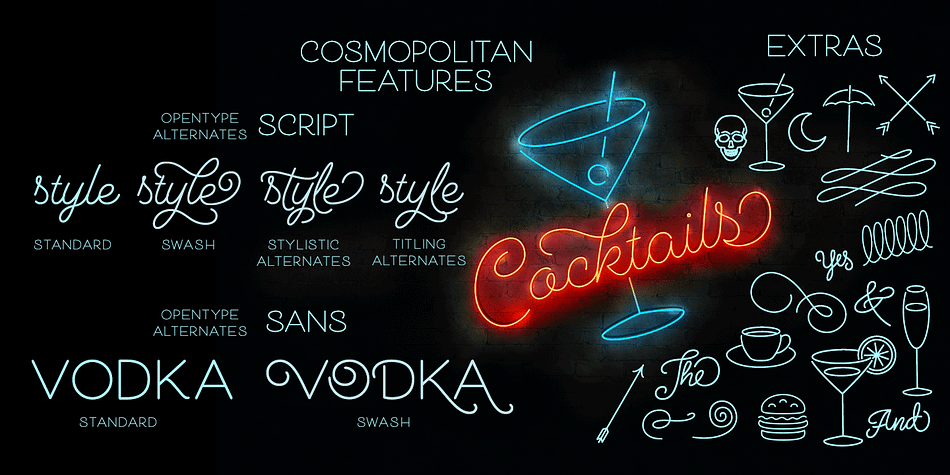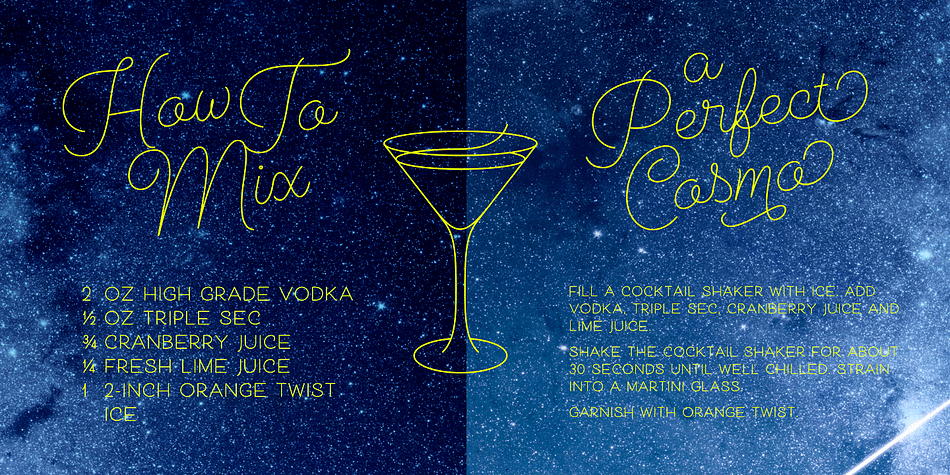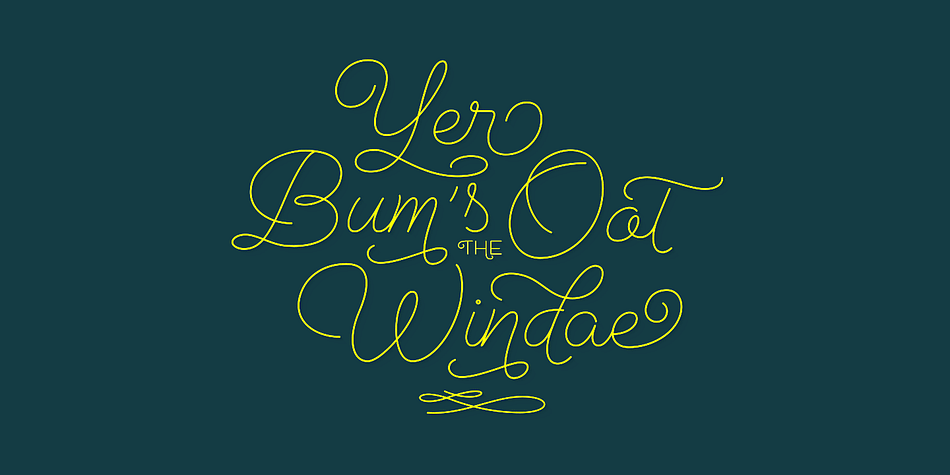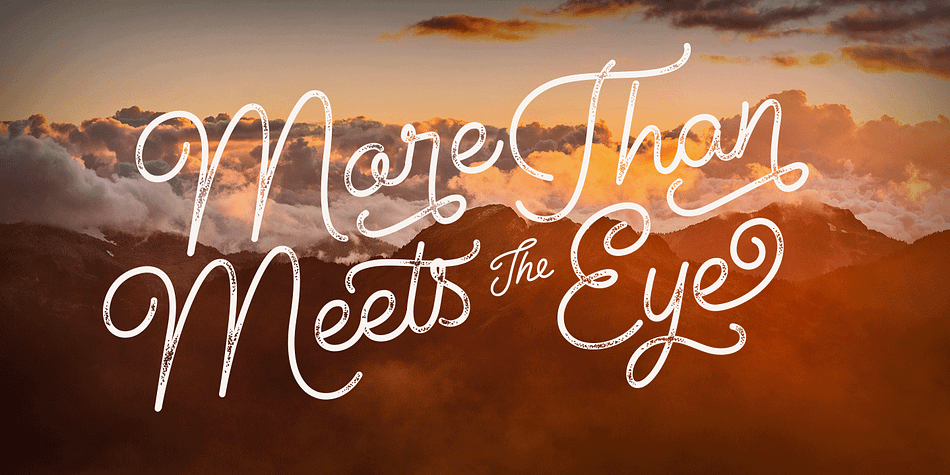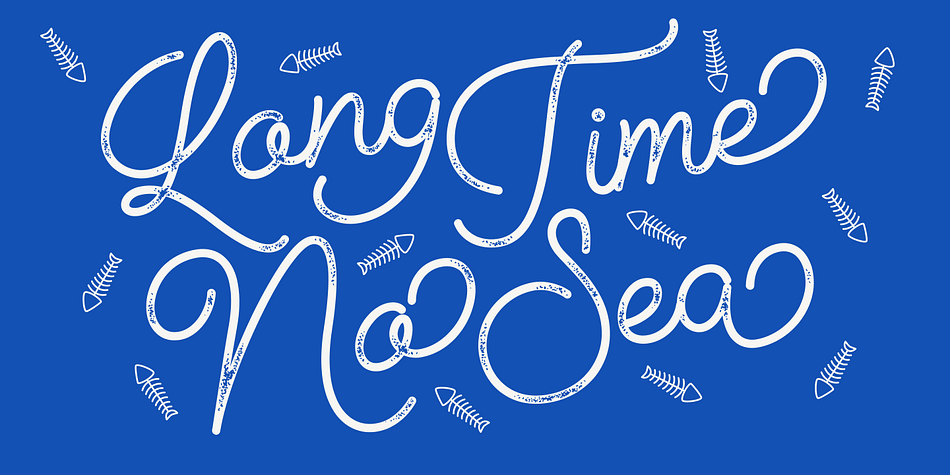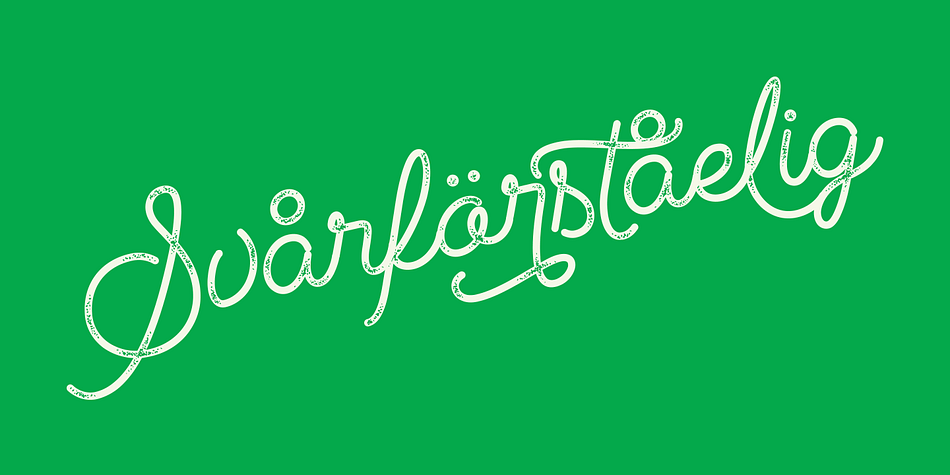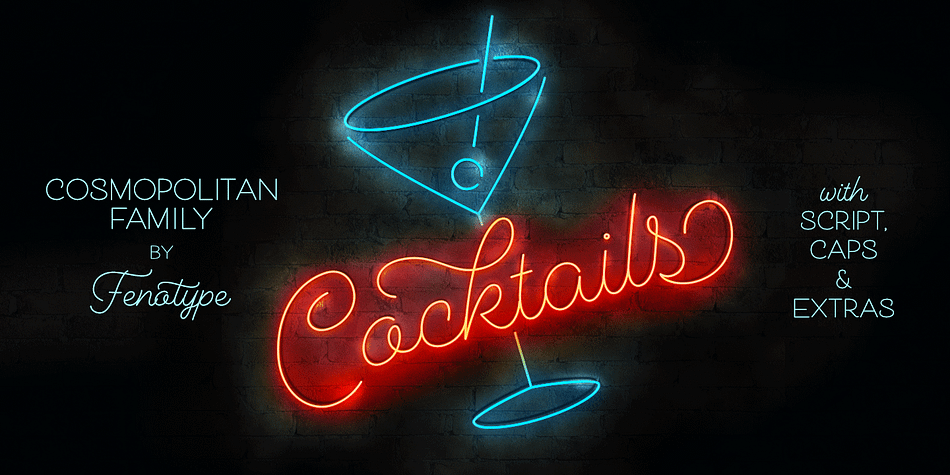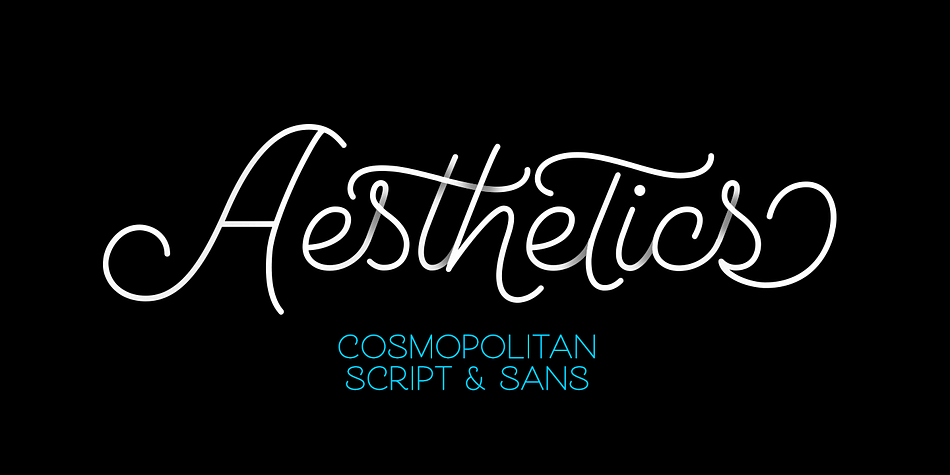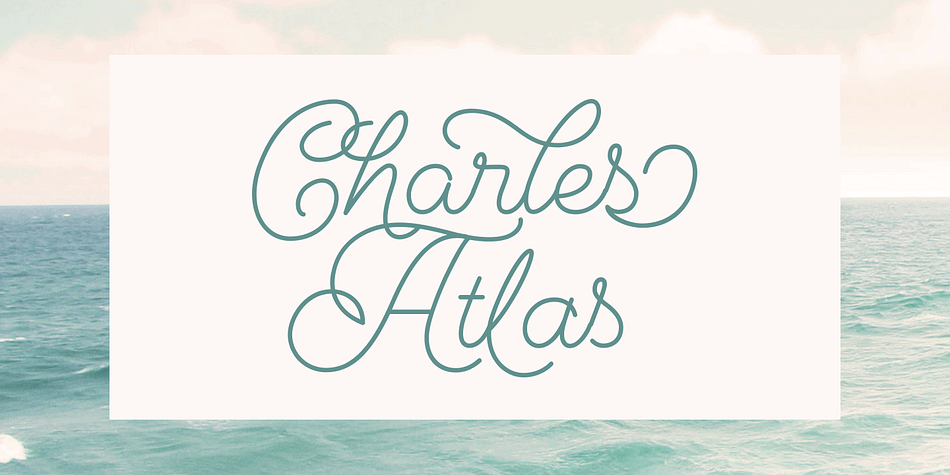
Designed by Emil Karl Bertell, Cosmopolitan is a dingbat, script and hand display font family. This typeface has fifteen styles and was published by Fenotype.
Cosmopolitan is a monoline font family with script and sans versions that both work great together or alone. It comes with five weights and “printed” versions. For extra swashes, swirls and pictograms there is Cosmopolitan Extras.
Cosmopolitan Script is packed with OpenType alternates: turn on Swash, Stylistic or Titling Alternates in any OpenType savvy program or find even more alternates from the Glyph Palette. Cosmopolitan Sans has different Swash Alternates for both upper and lowercase characters.
Cosmopolitan Family gives an elegant look for any project from print to digital. For the very best price purchase the whole family!